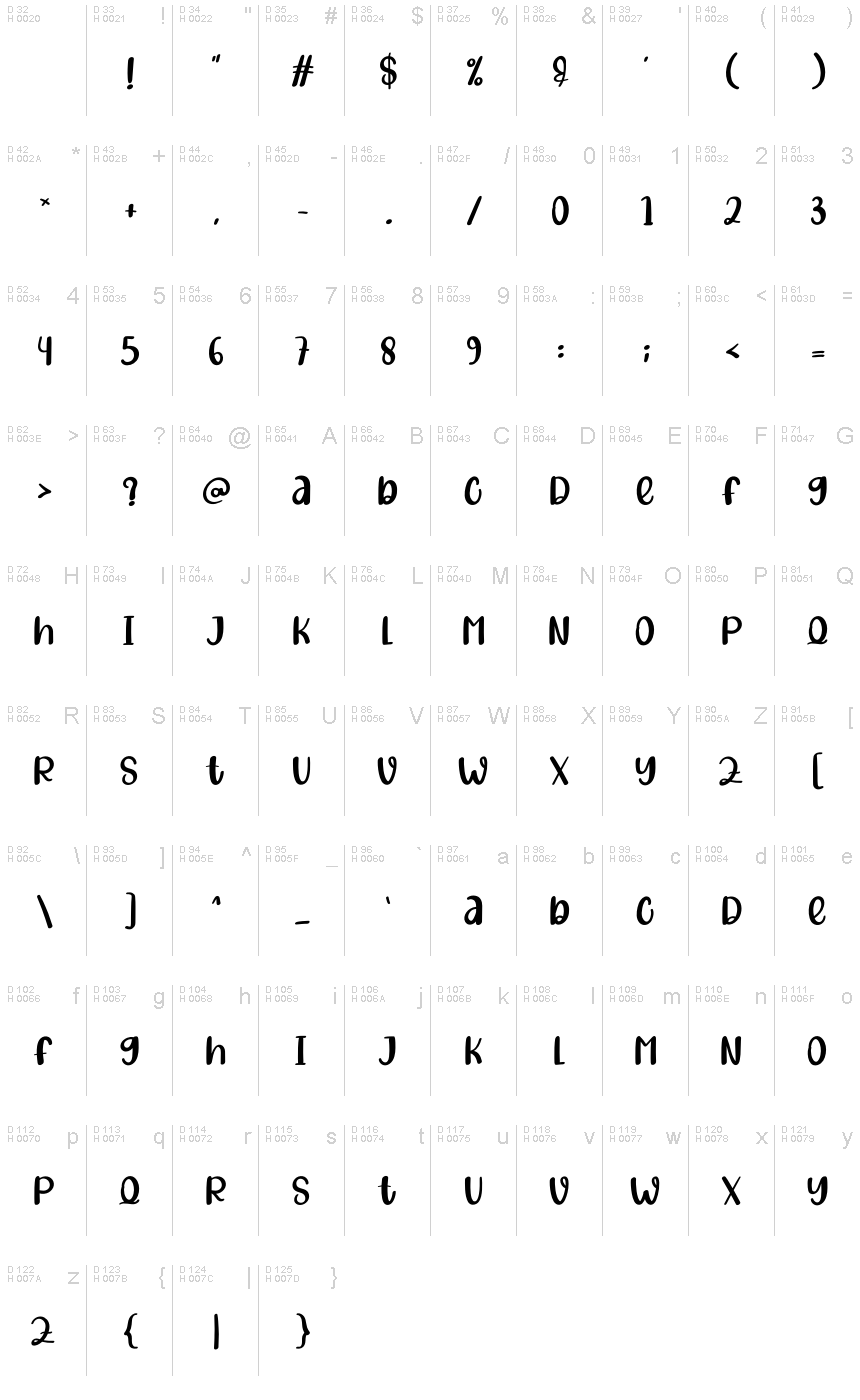
Christmas Paradise
Christmas Paradise is a captivating font that exudes the warmth and festivity of the holiday season. Crafted with a smooth, brush-like stroke, this bold font radiates a sense of whimsy and charm. The fluid, organic lines and expressive shapes lend a playful, handcrafted feel, making it an excellent choice for seasonal branding, greeting cards, and holiday-themed designs.
The font's versatility extends beyond its visual appeal, as it can seamlessly transition between playful, sophisticated, and elegant applications. Whether adorning the cover of a holiday magazine or elevating the presentation of a festive menu, Christmas Paradise effortlessly captures the spirit of the season, making it a valuable asset in any designer's toolkit.